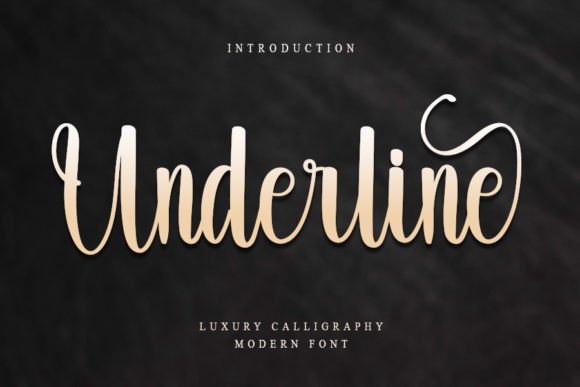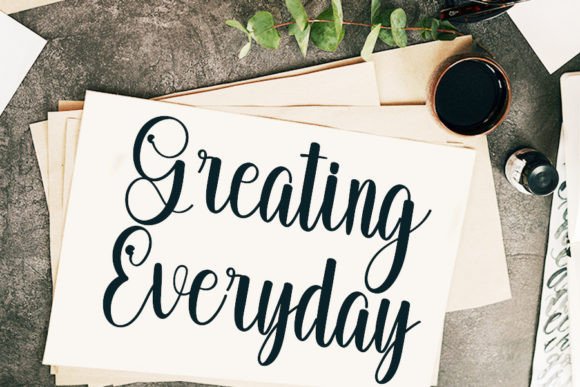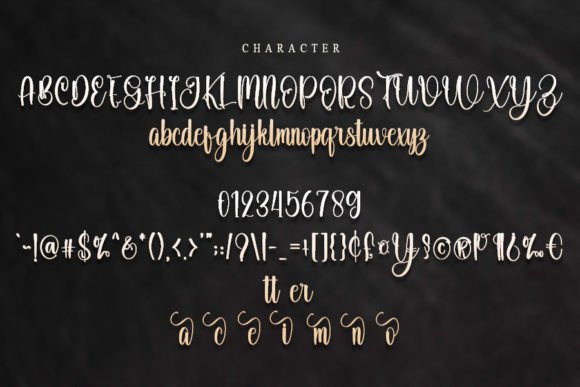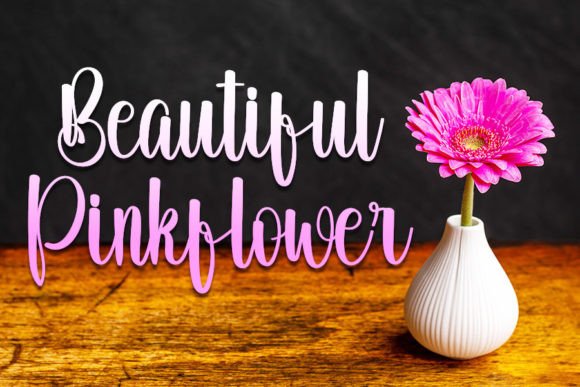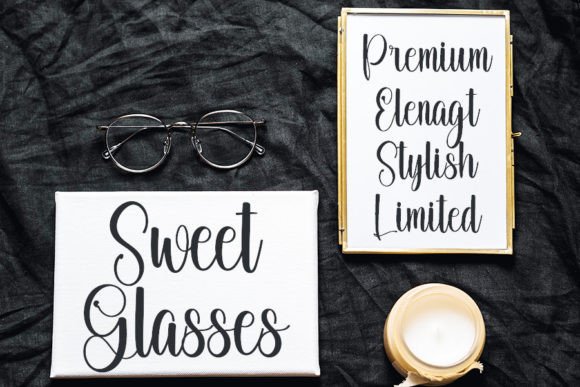
About Underline Font
**Underline Font: Elegant Handwritten Sophistication**
Introducing “Underline,” a font that exudes beauty and refinement in its handwritten elegance. Classy and modern, Underline is the perfect choice for a wide array of design applications, including logos, branding, invitations, stationery, wedding designs, social media posts, and beyond. This font is not just a typeface; it’s a design element that brings a touch of sophistication to your creative expressions.
**Classy and Modern Aesthetics:**
Underline strikes a delicate balance between classiness and modernity. Its refined handwritten style adds an elegant touch to your projects, ensuring that your designs emanate a timeless and contemporary appeal. Whether you’re working on a logo, branding materials, or wedding invitations, Underline enhances the visual aesthetics with its graceful charm.
**Versatile for Various Projects:**
The adaptability of Underline shines through in its suitability for various design purposes. From formal invitations to casual social media posts, Underline seamlessly fits into different contexts, making it a versatile choice for any creative endeavor. It elevates the visual appeal of stationery and adds a touch of grace to your wedding designs.
**PUA Encoded for Easy Access:**
Underline goes beyond conventional fonts by being PUA (Private Use Area) encoded. This feature ensures easy access to a plethora of amazing glyphs and ligatures. Designers can effortlessly explore and utilize these unique characters, enhancing the overall customization and individuality of their projects.
**A Touch of Sophistication:**
Choosing Underline isn’t just about selecting a font; it’s about infusing your designs with a touch of sophistication. The handwritten elegance of Underline captures attention and creates a lasting impression, whether it’s on a digital platform or printed material.
Underline is more than a font; it’s a design asset that transforms your creative visions into visual masterpieces. Choose Underline for an elegant and refined aesthetic that transcends trends, leaving an indelible mark on your logos, branding, invitations, and beyond. Let this font be the silent yet powerful storyteller in your design journey.